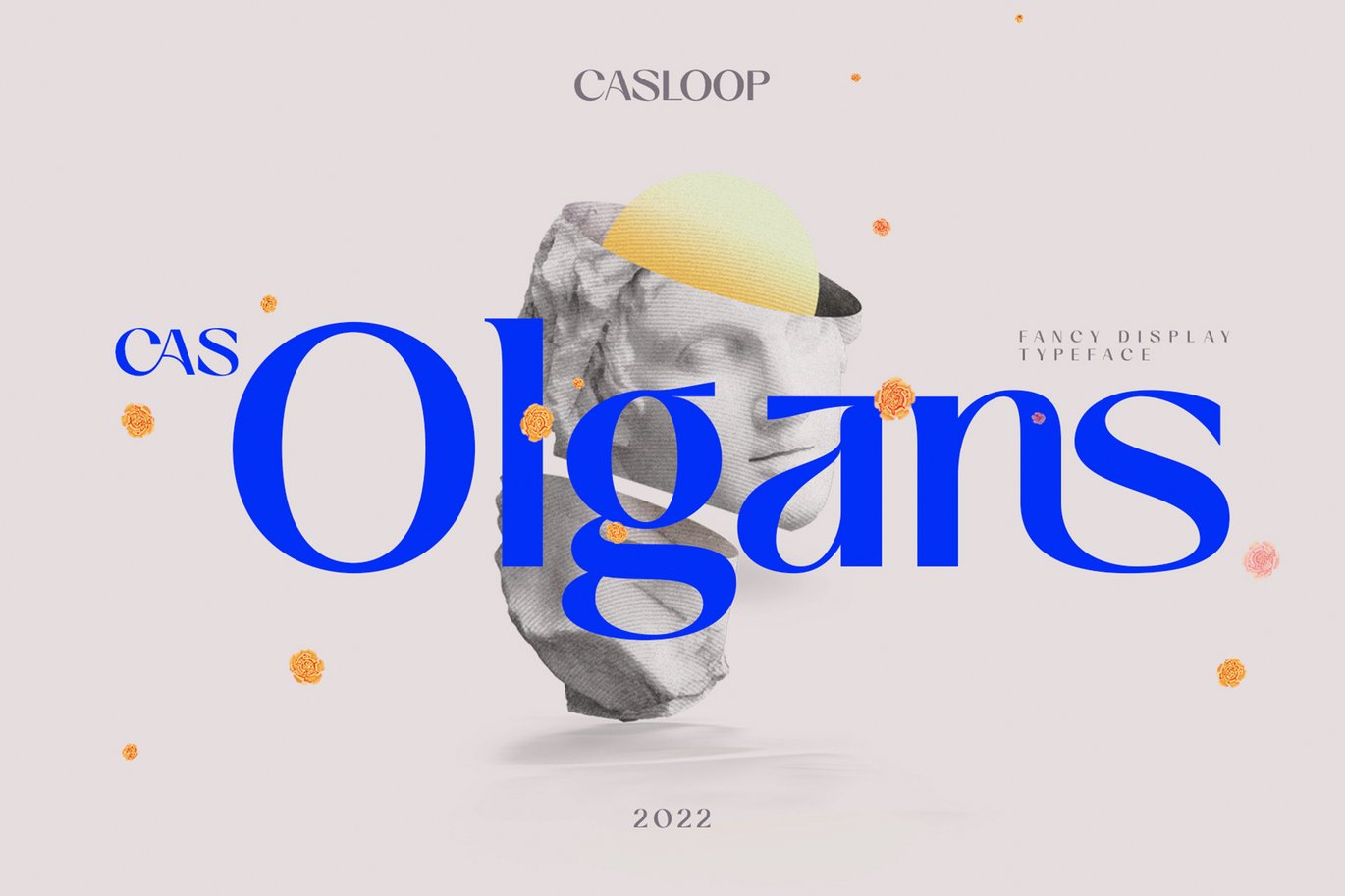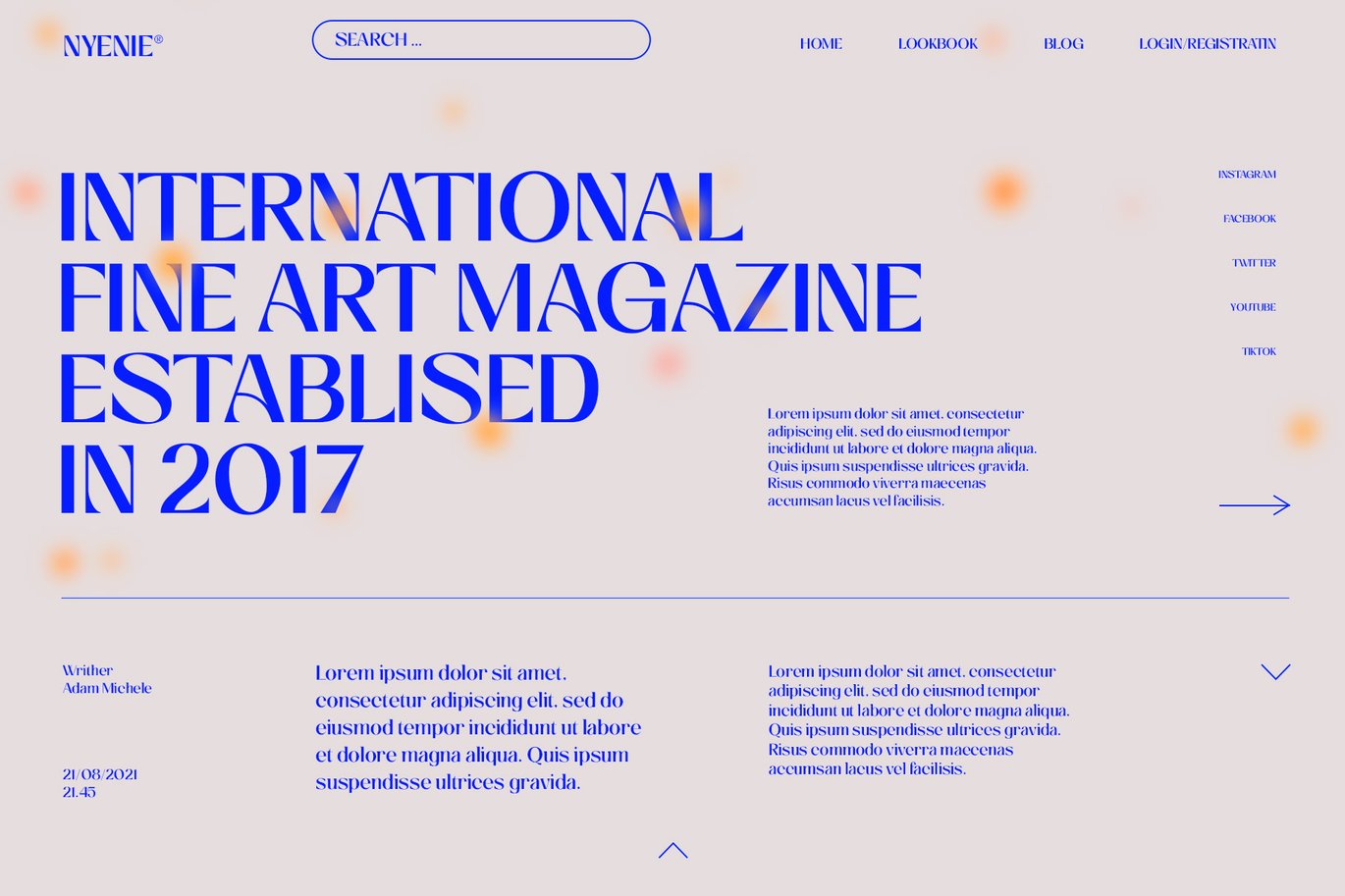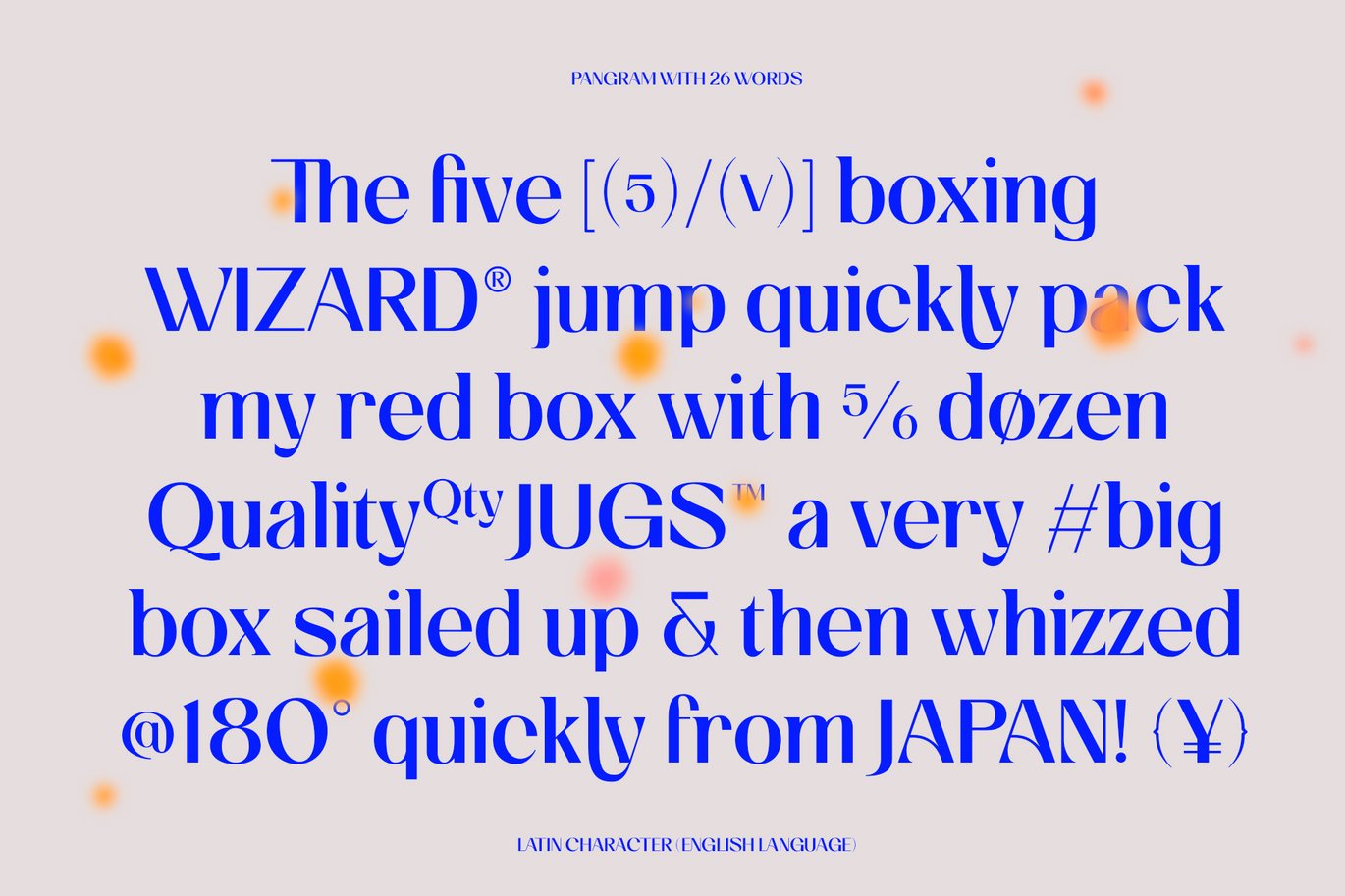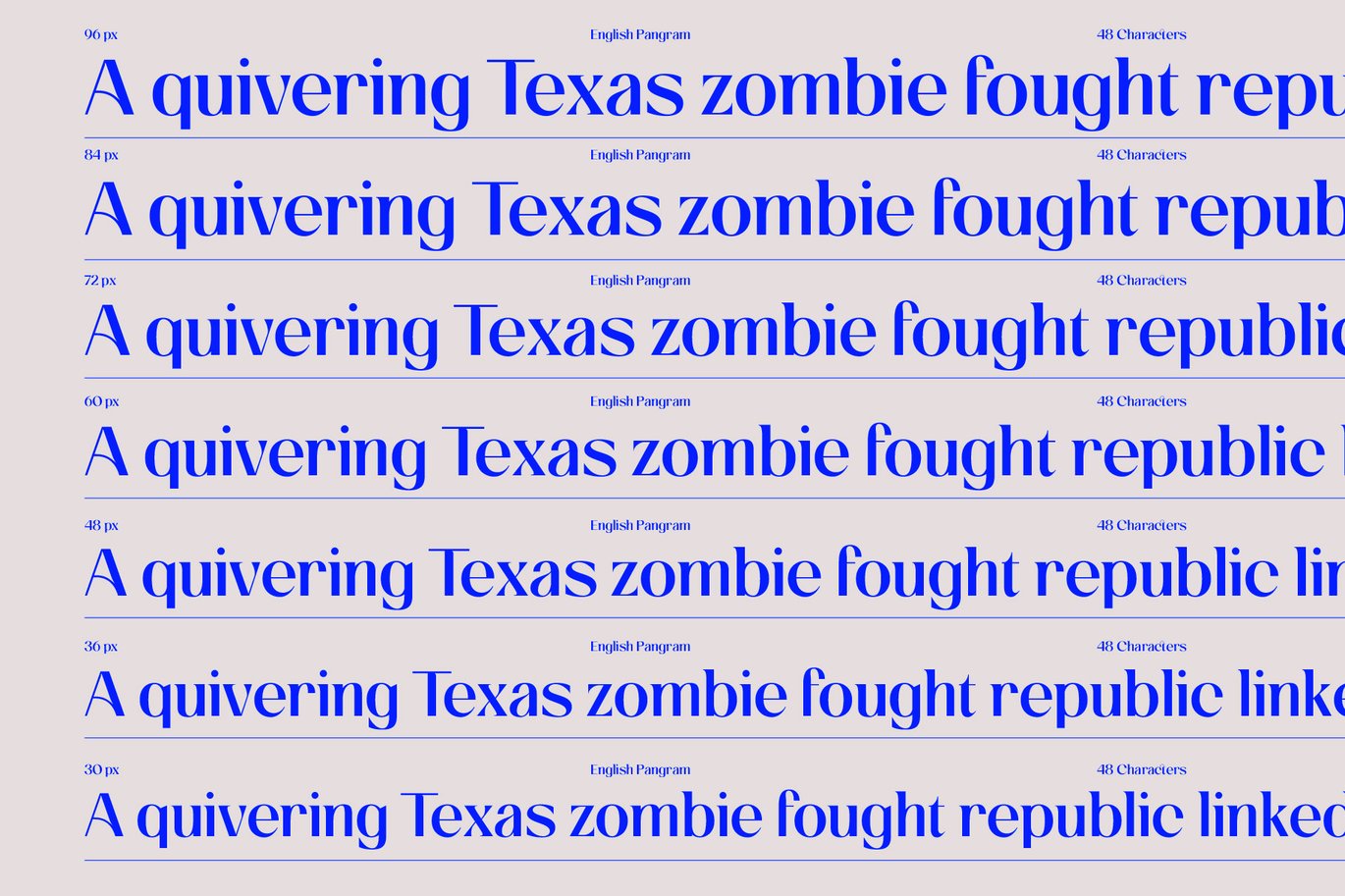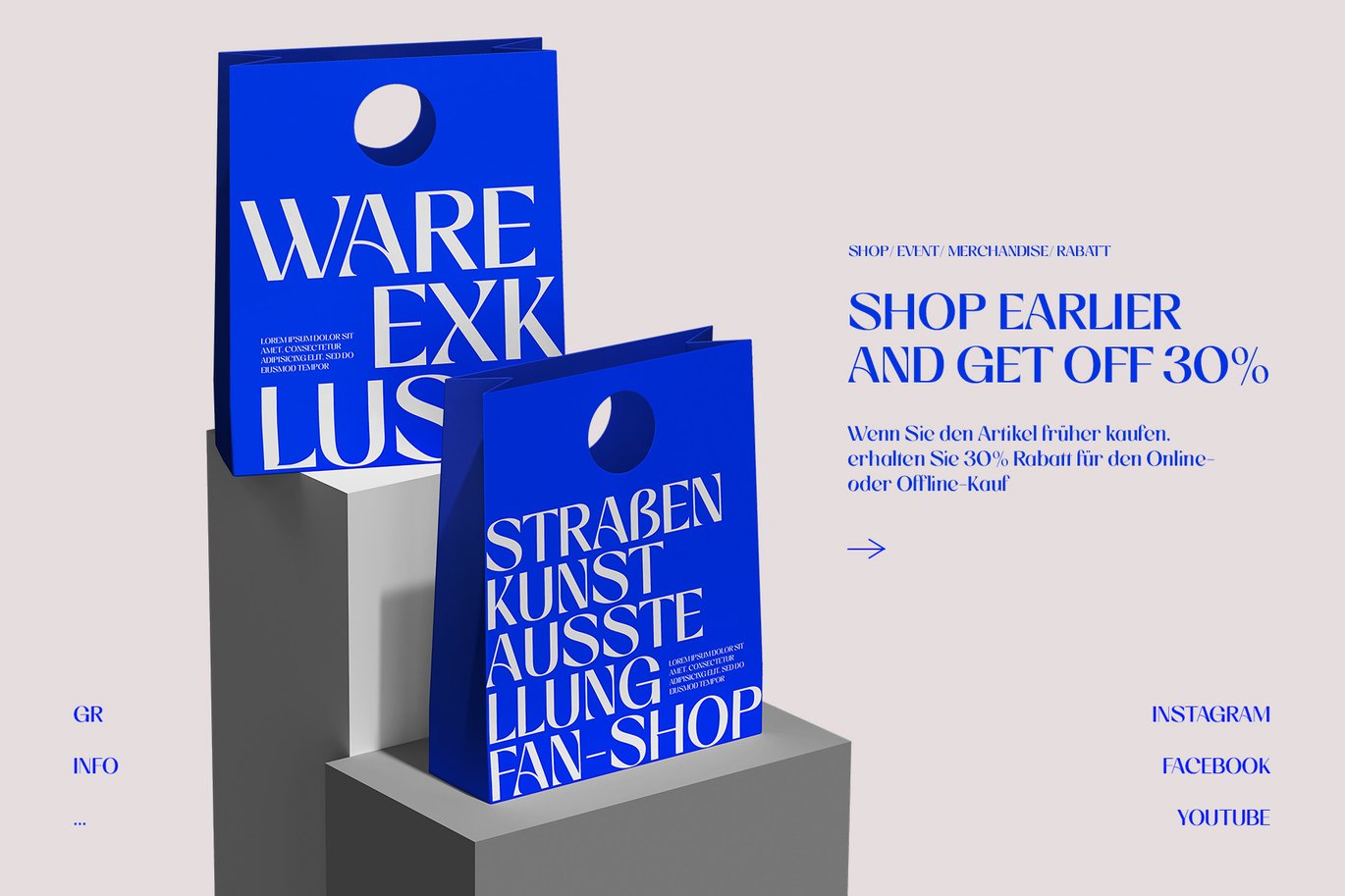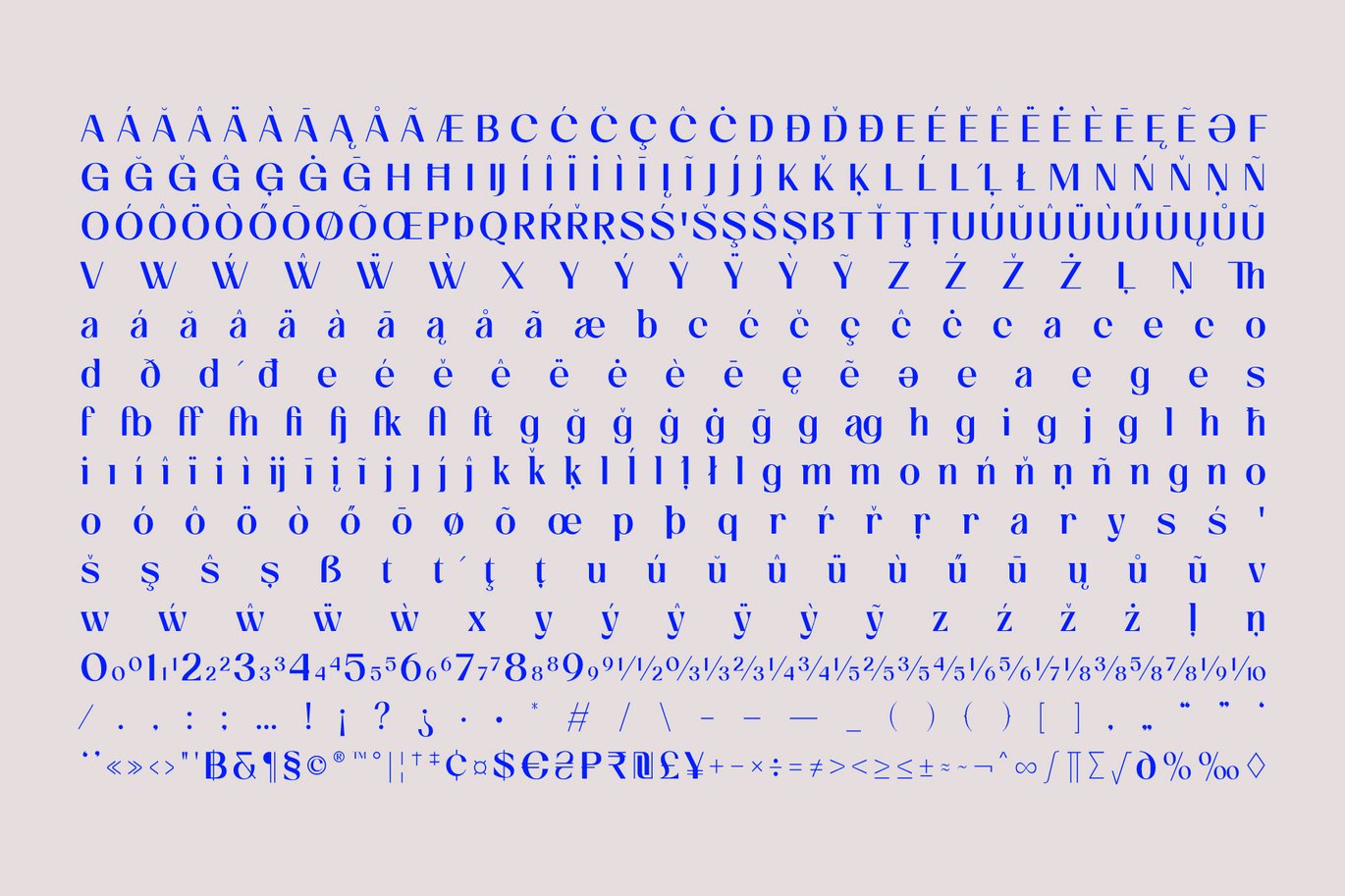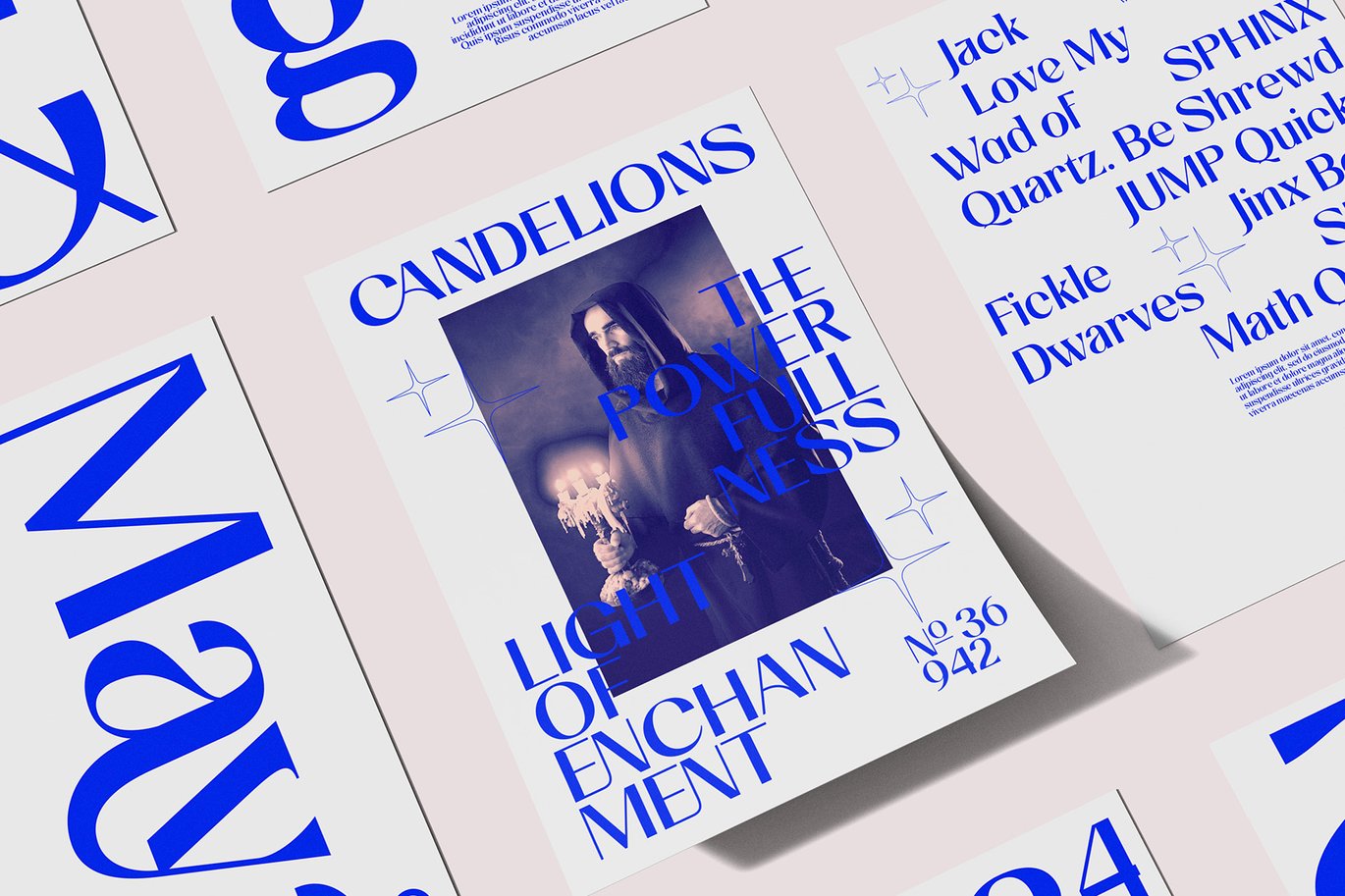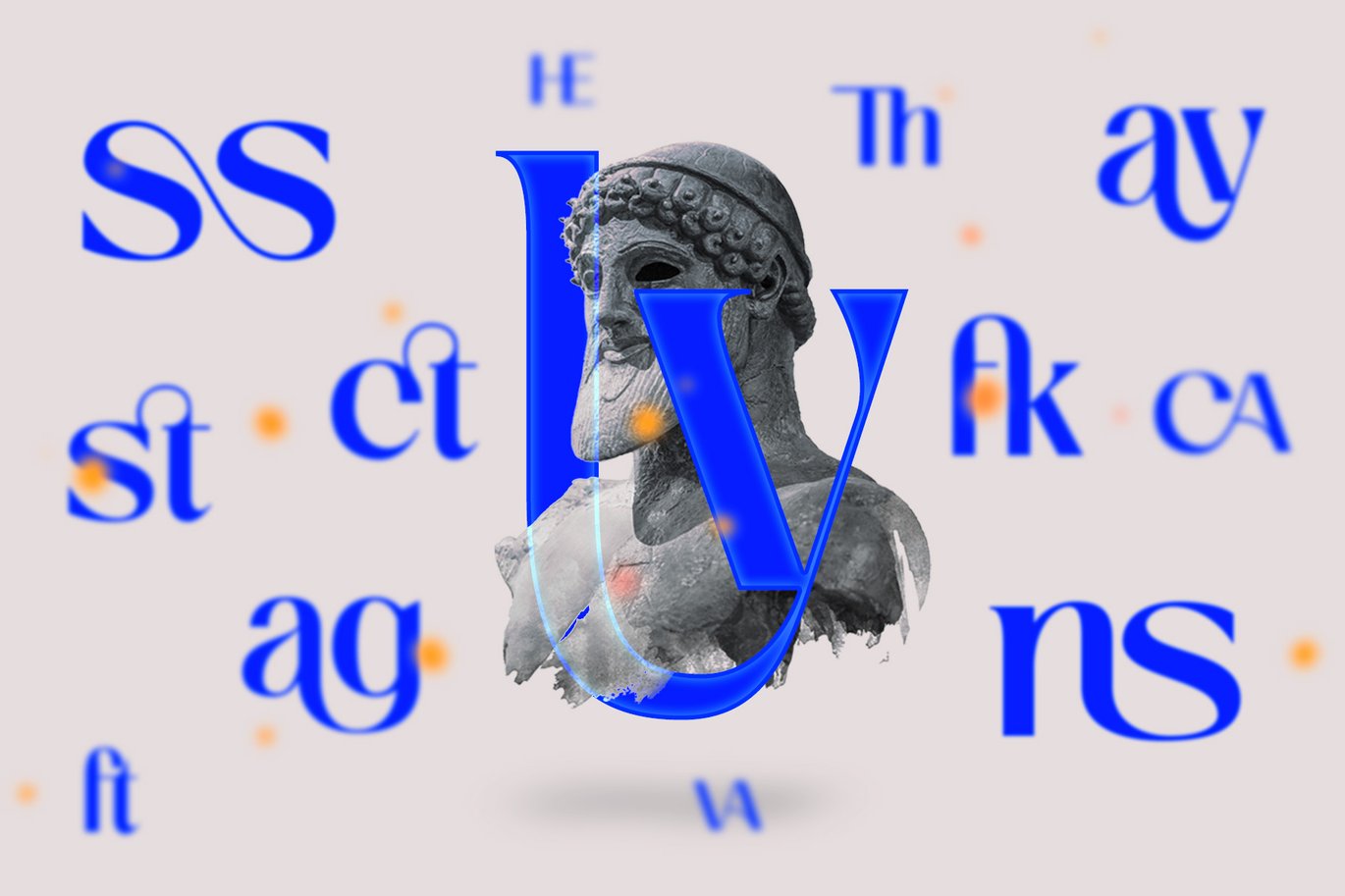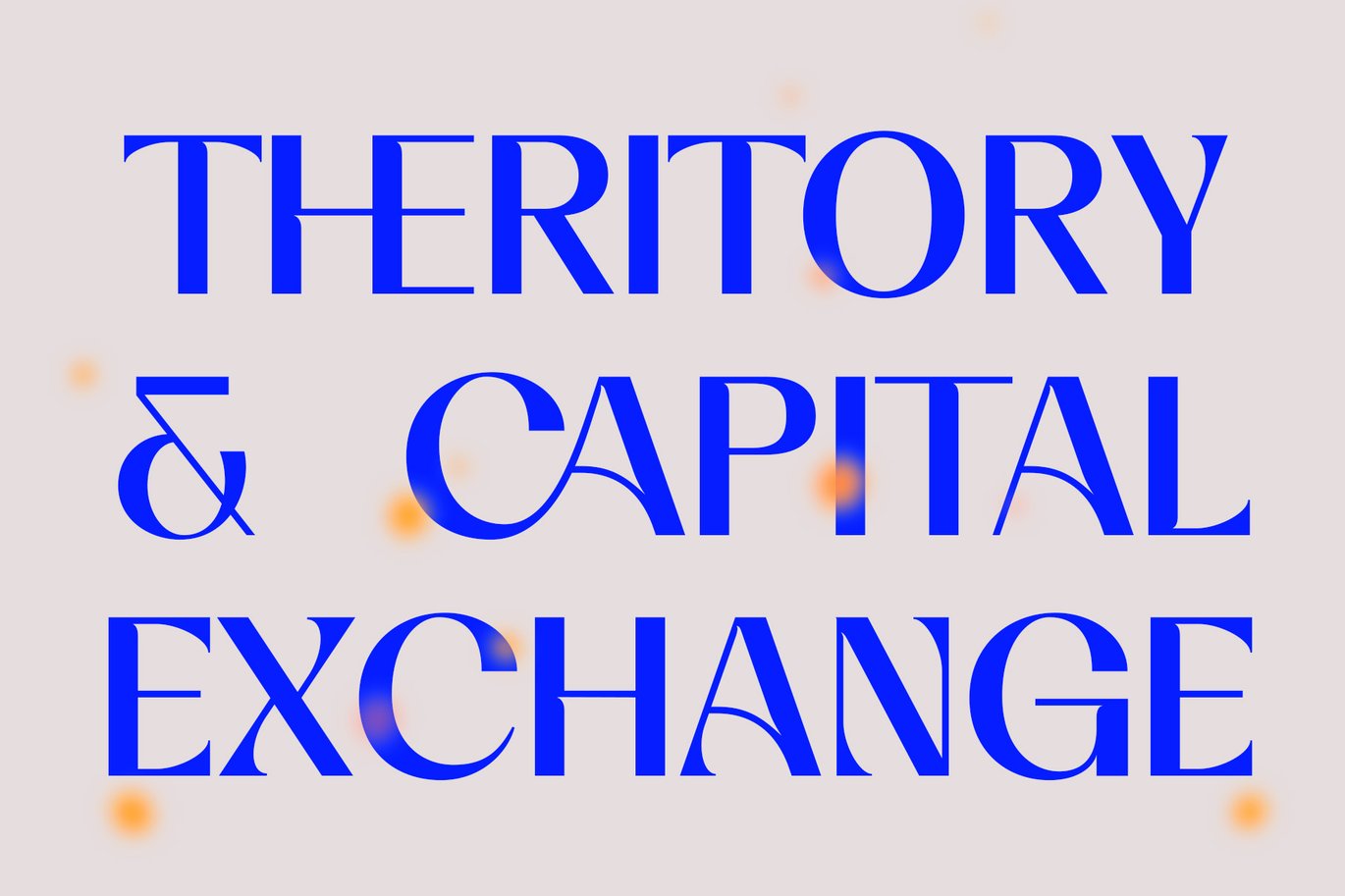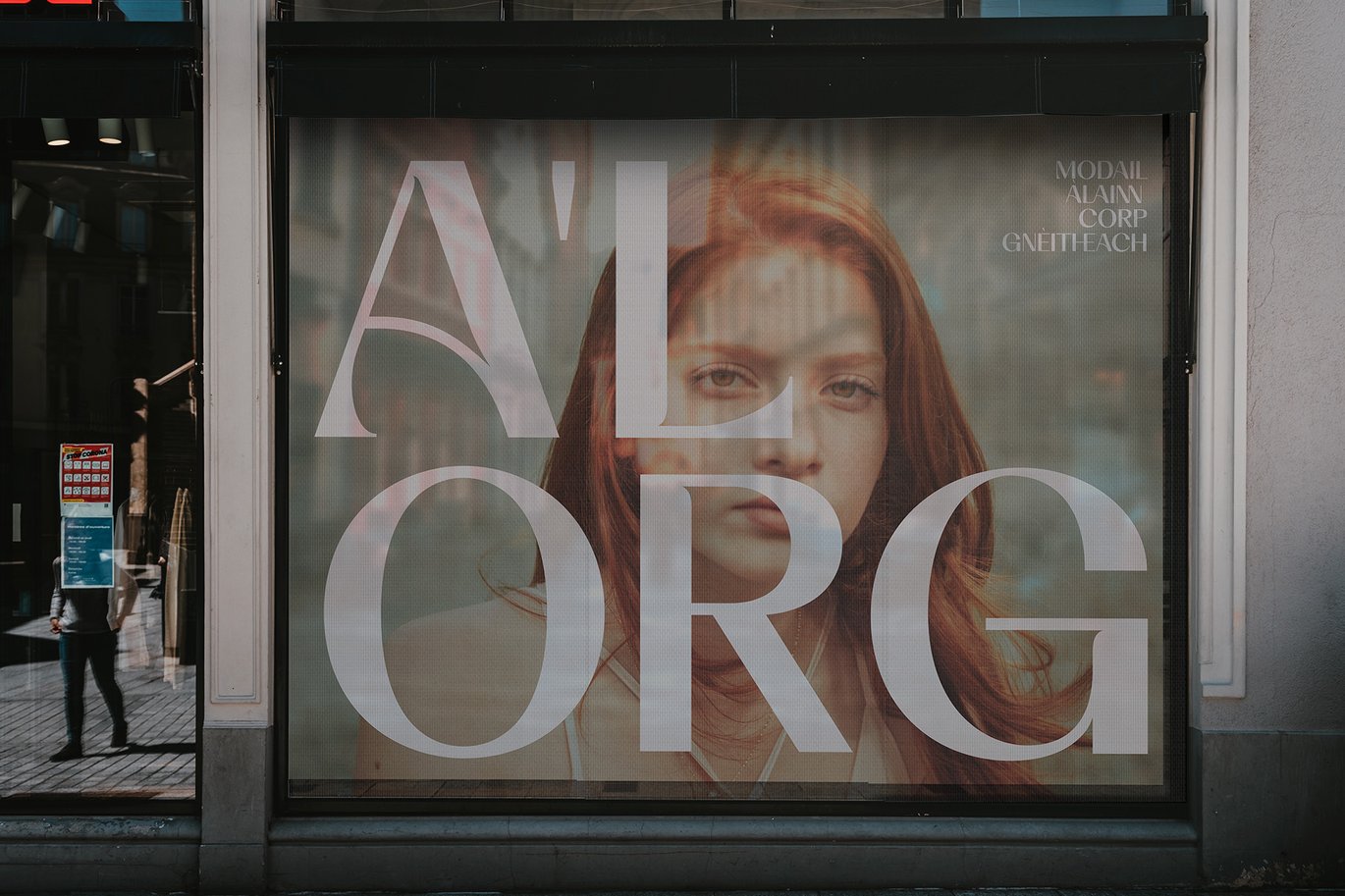
Cas Olgans – Deco Flare Sans Serif Memphis Font
Introducing Cas Olgans, an abstract masterpiece inspired by the enchanting eras of the 1920s through the 1960s. This font is not merely a typeface; it’s a fusion of art deco elegance and neo-classic allure, delivering a seriously unique and stunningly ornate experience. A perfect pair to Montserrat.
Characteristic of the font’s personality are its striking accents and delicate, contemporary curves. The ornate ligatures bring a touch of filigree and heraldic charm, transporting your design projects into the realms of royalty and nostalgia. The soft curves, reminiscent of historic jewelry, give a first-class touch to your creations, while the experimental approach injects an edgy and eccentric twist.
Cas Olgans proudly boasts a sans-serif style with a subtle flare and pinch, presenting a gorgeous and distinctive aesthetic. The font’s decorative ligatures add an impressive and magical touch, leaving users stunned and satisfied. This single-variant font is versatile and suitable for various design applications, including websites, packaging, logos, poster, layout, and branding.
Unleash the font’s epic potential as it seamlessly blends modernity with a nod to old fashioned charm. Whether you’re crafting a corporate identity, wine label, or a fairy tale-themed project, Cas Olgans brings forth an organic and unique appeal. Its ability to evoke the essence of nomadism, ethnic richness, and outer space exploration adds a touch of whimsy to your designs.
The Cas Olgans font, with its overlay of quirky and rustic elements, is like a journey down a river of creativity. Its themadi charm and timber-like toughness make it an ideal choice for diverse design scenarios. This font product is not just a tool; it’s an artistic expression, offering you a neuzeit experience with a touch of oriental flair.
n a world saturated with mundane options, Cas Olgans stands out as a font that goes beyond the ordinary. It’s a font fashioned to perfection, ensuring your designs are not just seen but remembered. Elevate your projects with Cas Olgans – the font that bridges the gap between history and modernity, delivering a font experience that is nothing short of legendary. And, of course, the eras of 1920, 1930, 1940, 1950, and 1960 provide the profound foundation for this captivating inspiration.